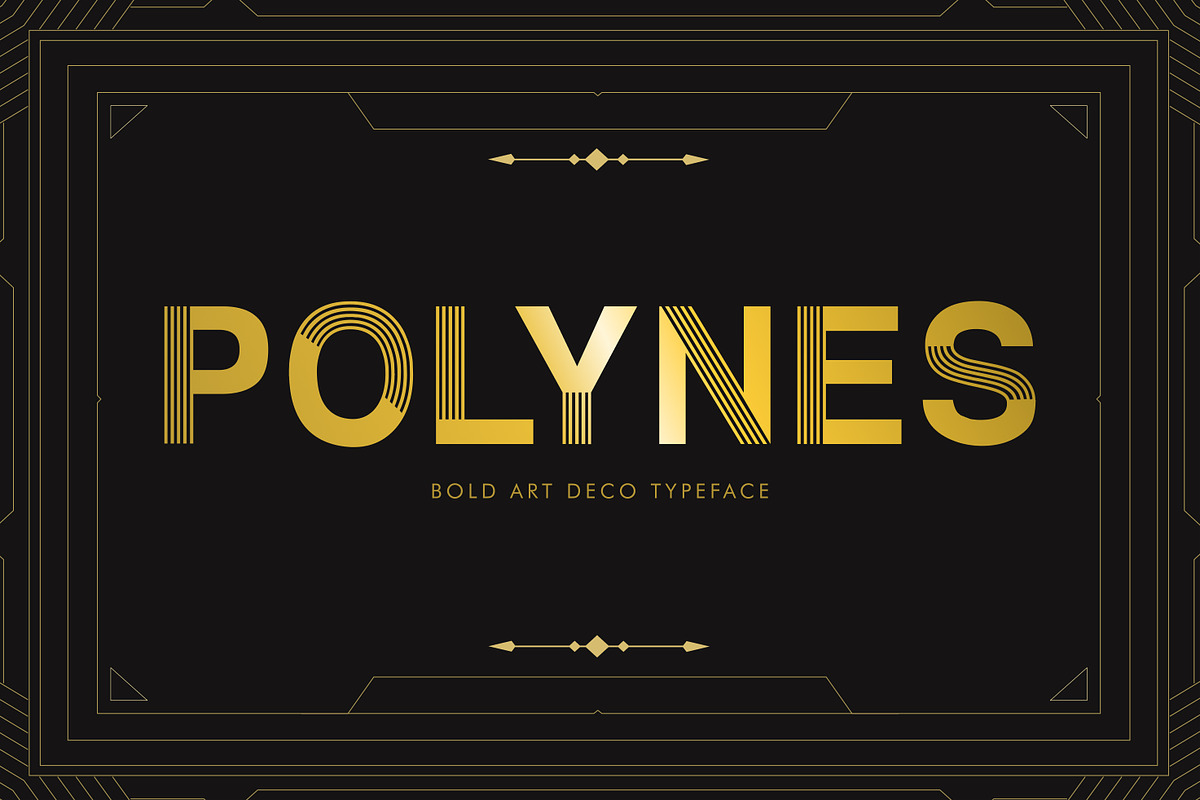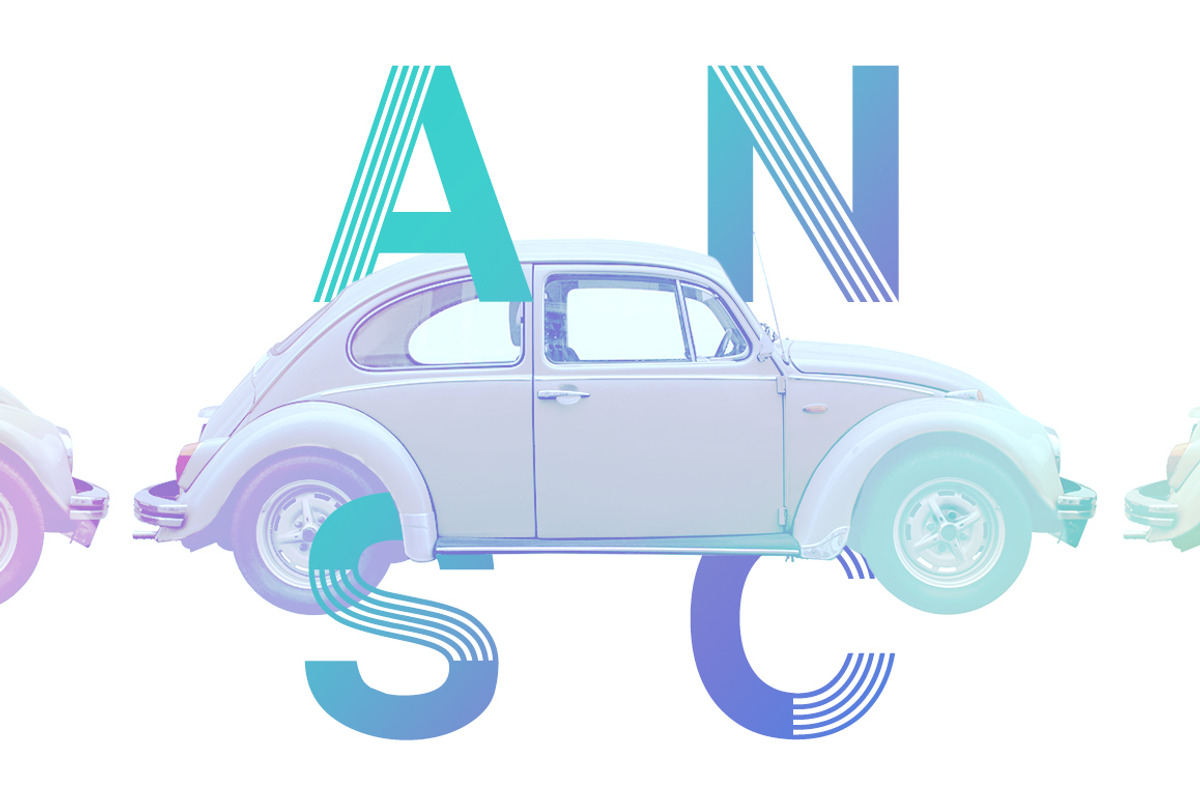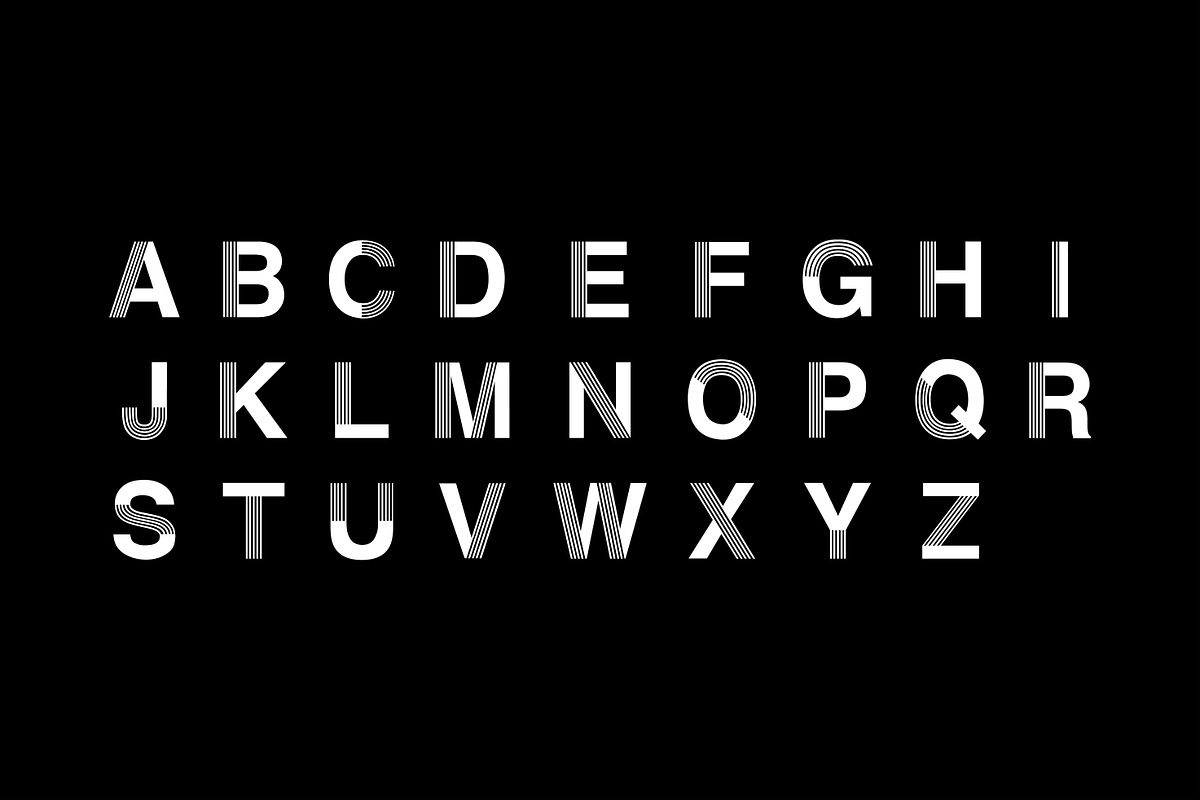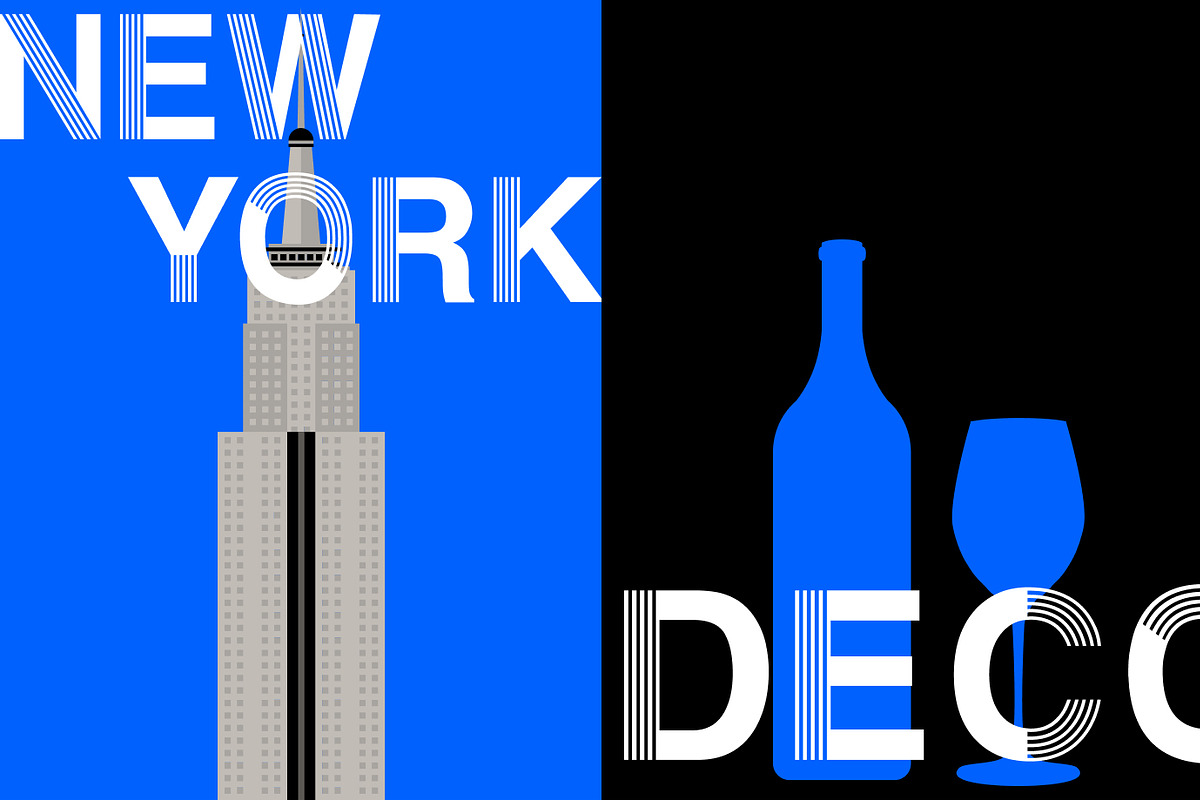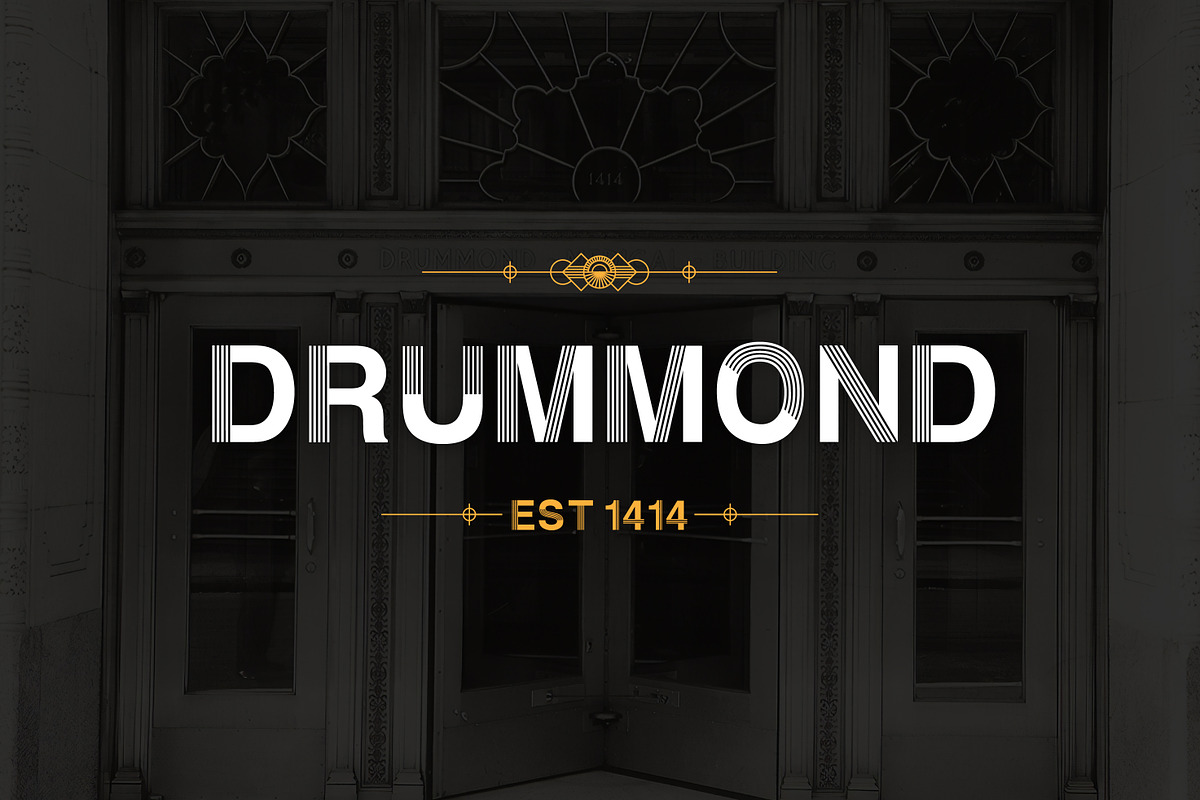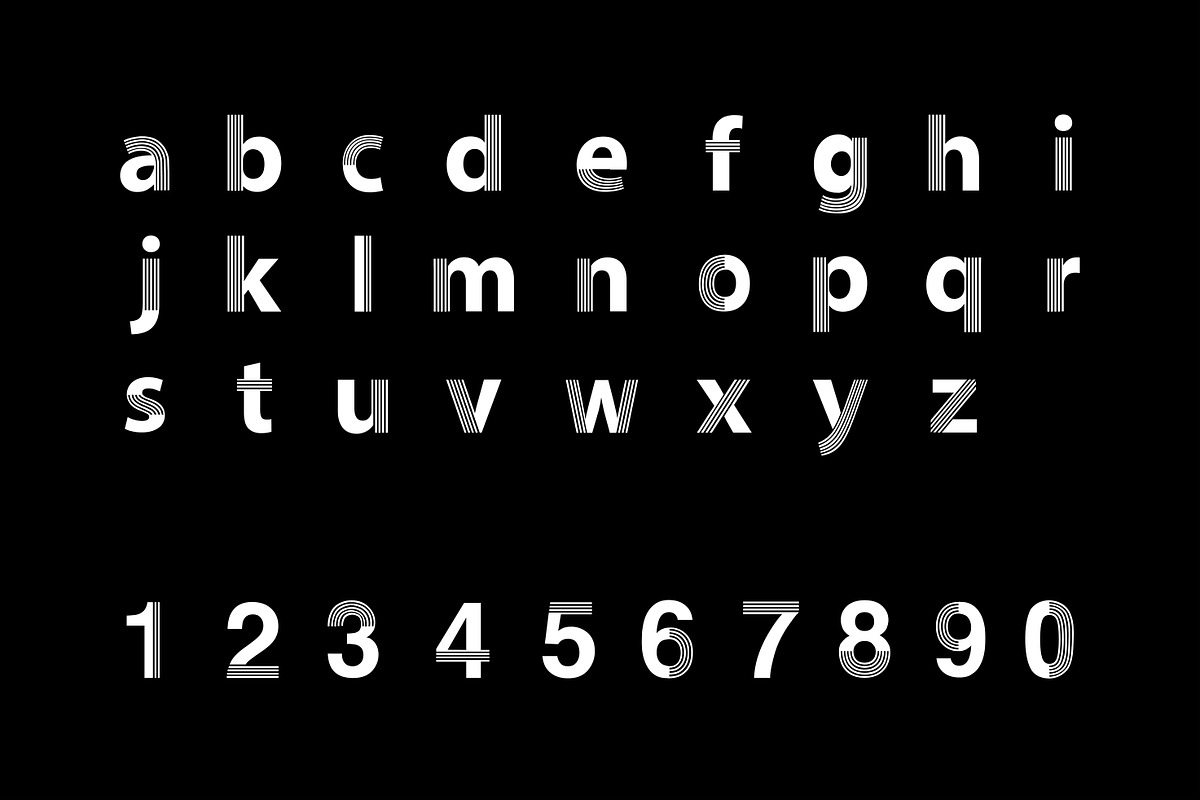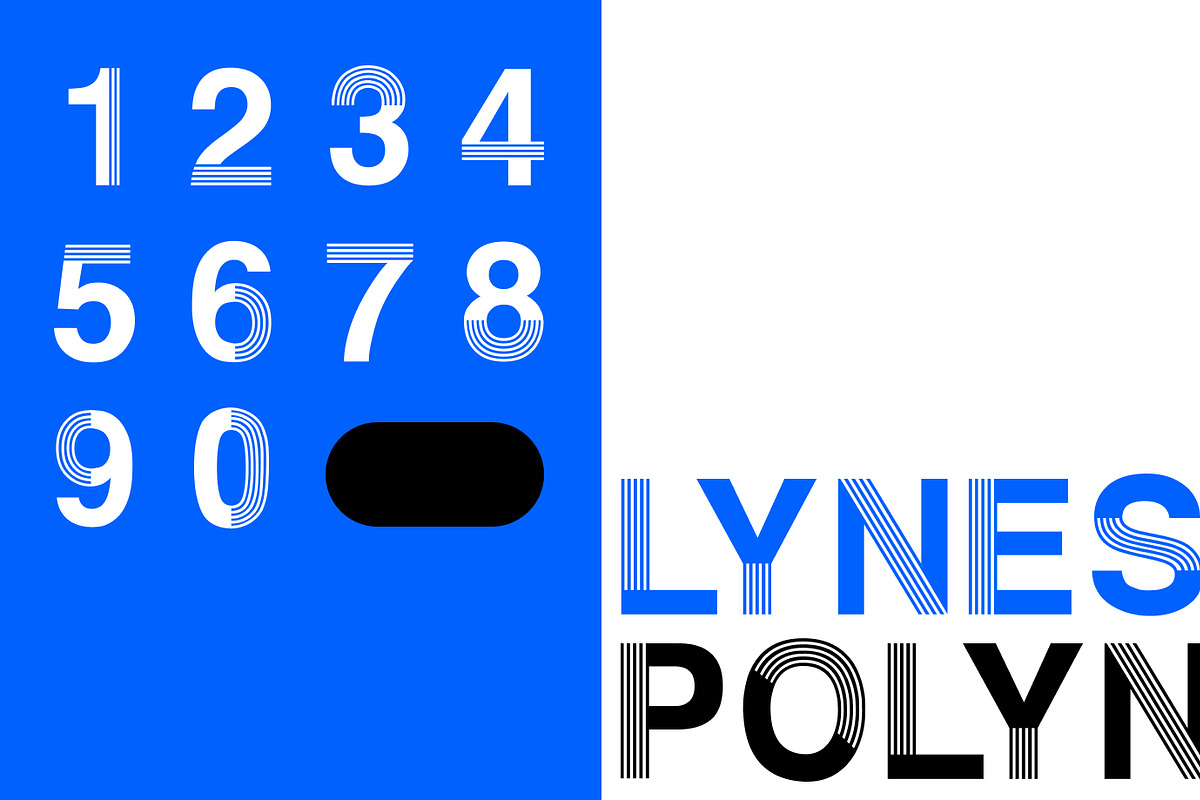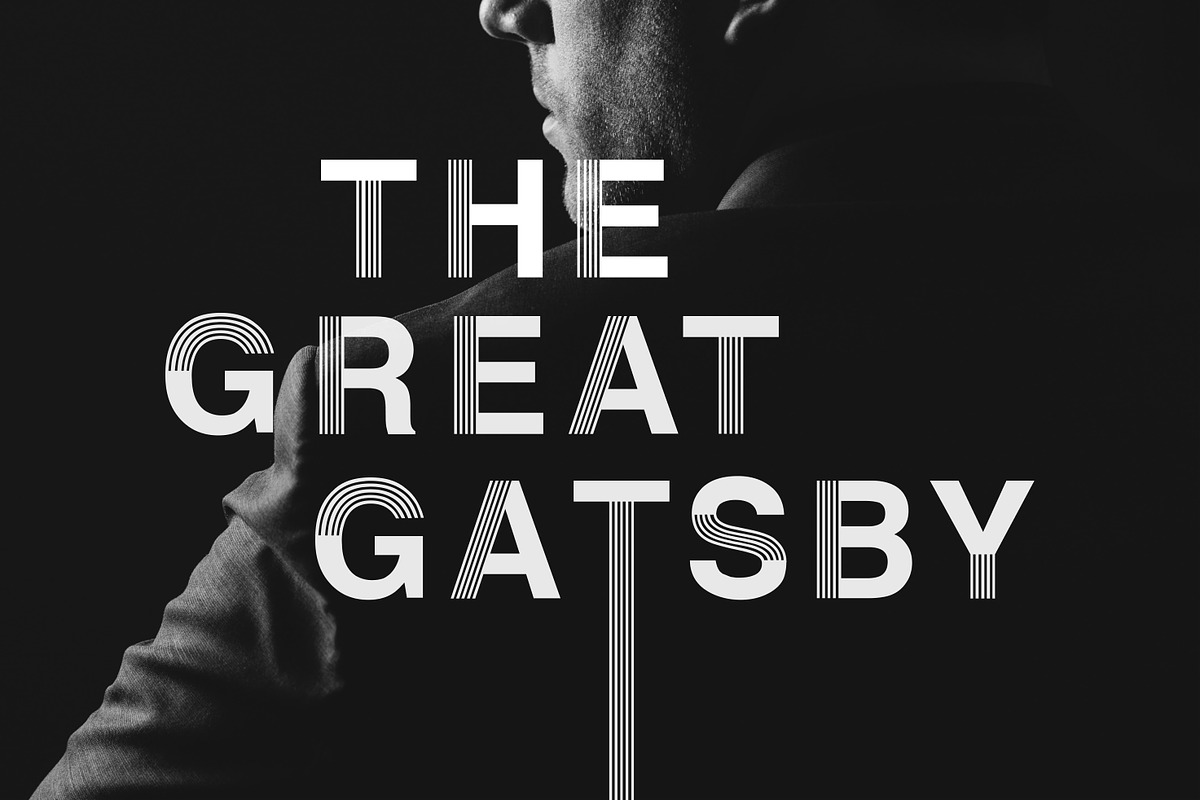
Polynes art deco font
Polynes art deco font by Def Studio is a font selected for branding, posters, packaging, typography.
Why Polynes art deco font is worth a look
Polynes art deco font by Def Studio fits naturally into Branding, posters, packaging, typography.